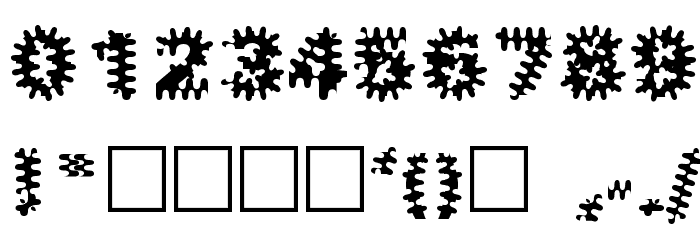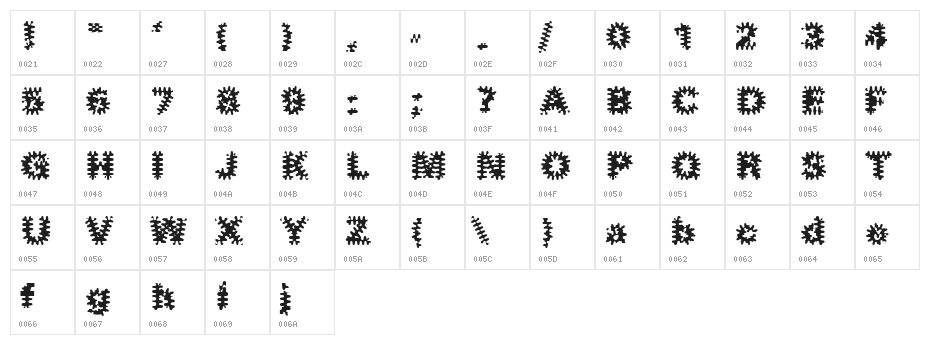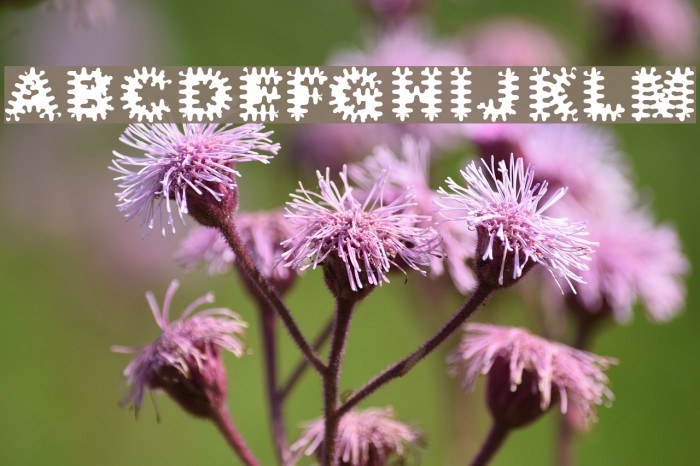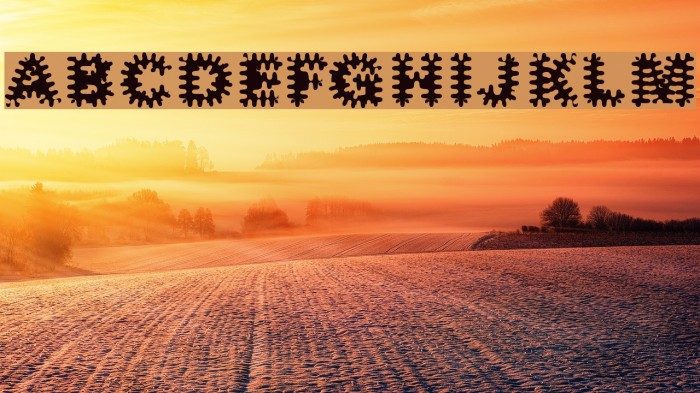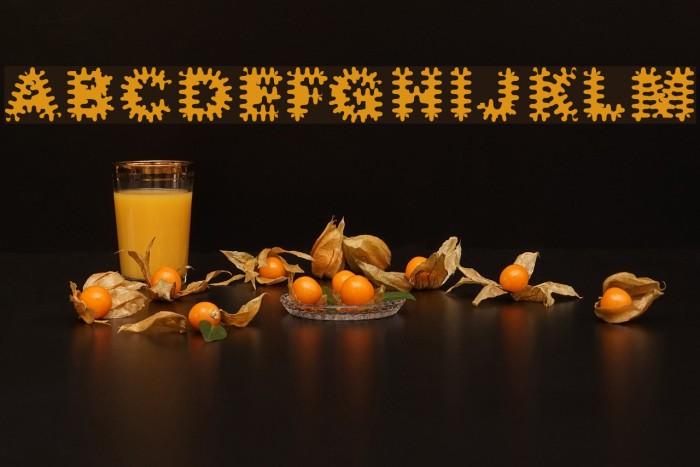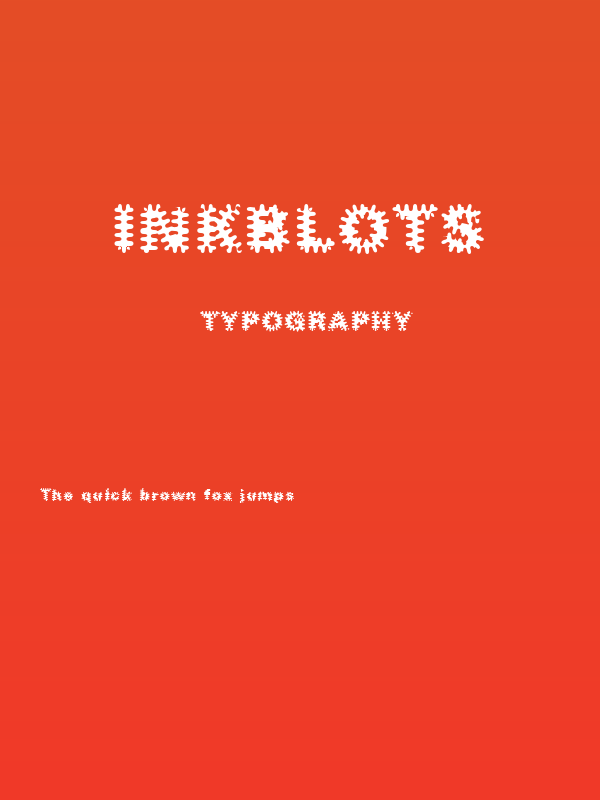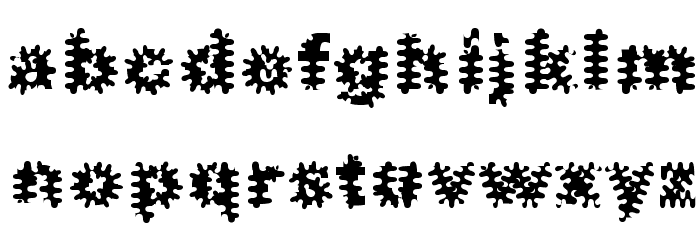
Inkblots Font
Inkblots Description
This font features a unique, abstract design reminiscent of inkblots, with each character appearing as if it has been splattered with ink. The edges are irregular and jagged, creating a dynamic and artistic appearance. The uppercase and lowercase letters maintain this theme, with consistent irregularity and boldness. Numbers and special characters follow the same style, ensuring a cohesive look across all elements. The font's distinctiveness makes it stand out, ideal for creative and unconventional projects.
| Overall Style | Artistic, Abstract |
| Use Case | Logos, Posters, Album Covers |
| Proposed Projects | Ideal for artistic projects, creative branding, posters, album covers, and any design requiring a bold, unconventional look. |